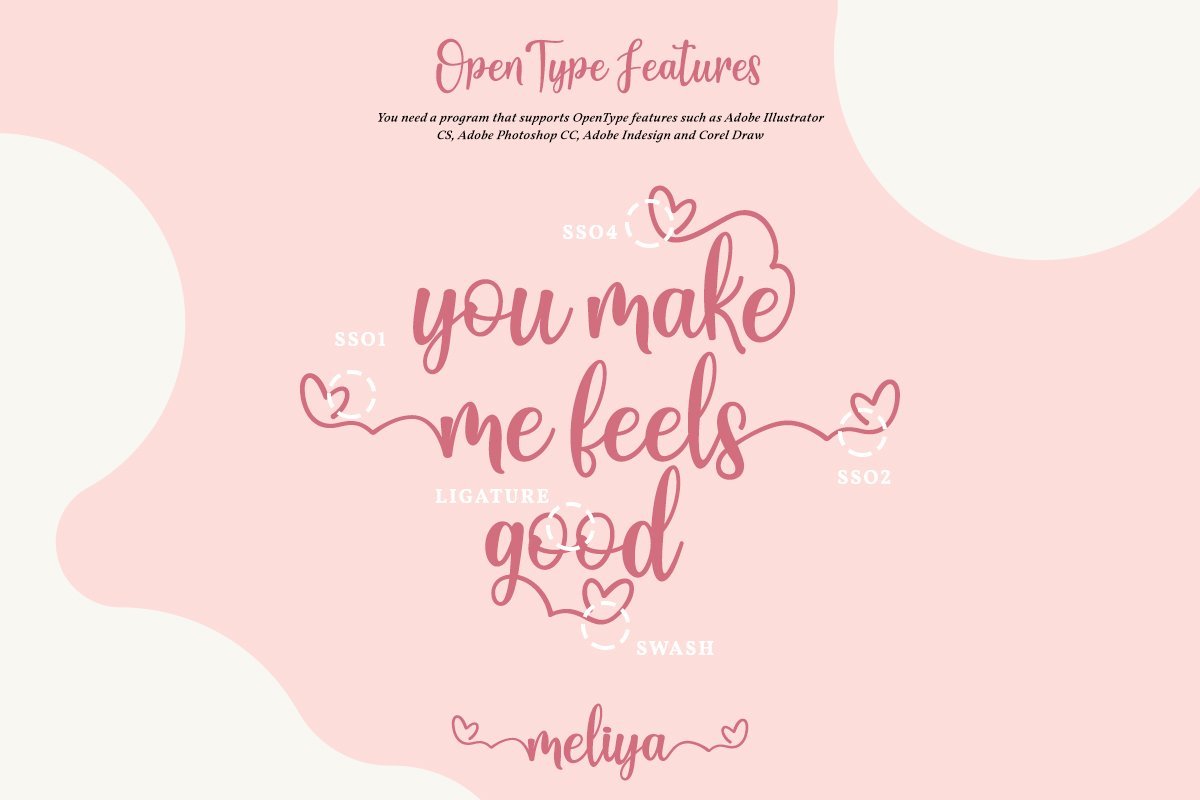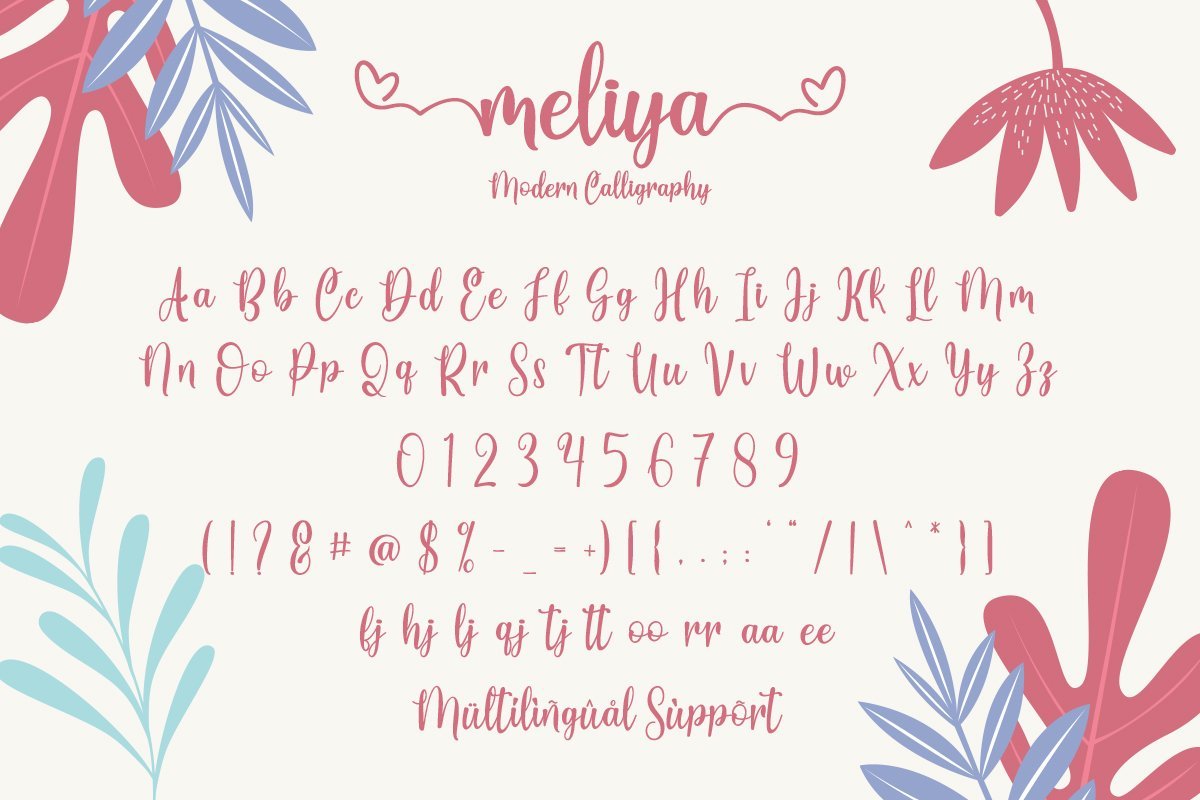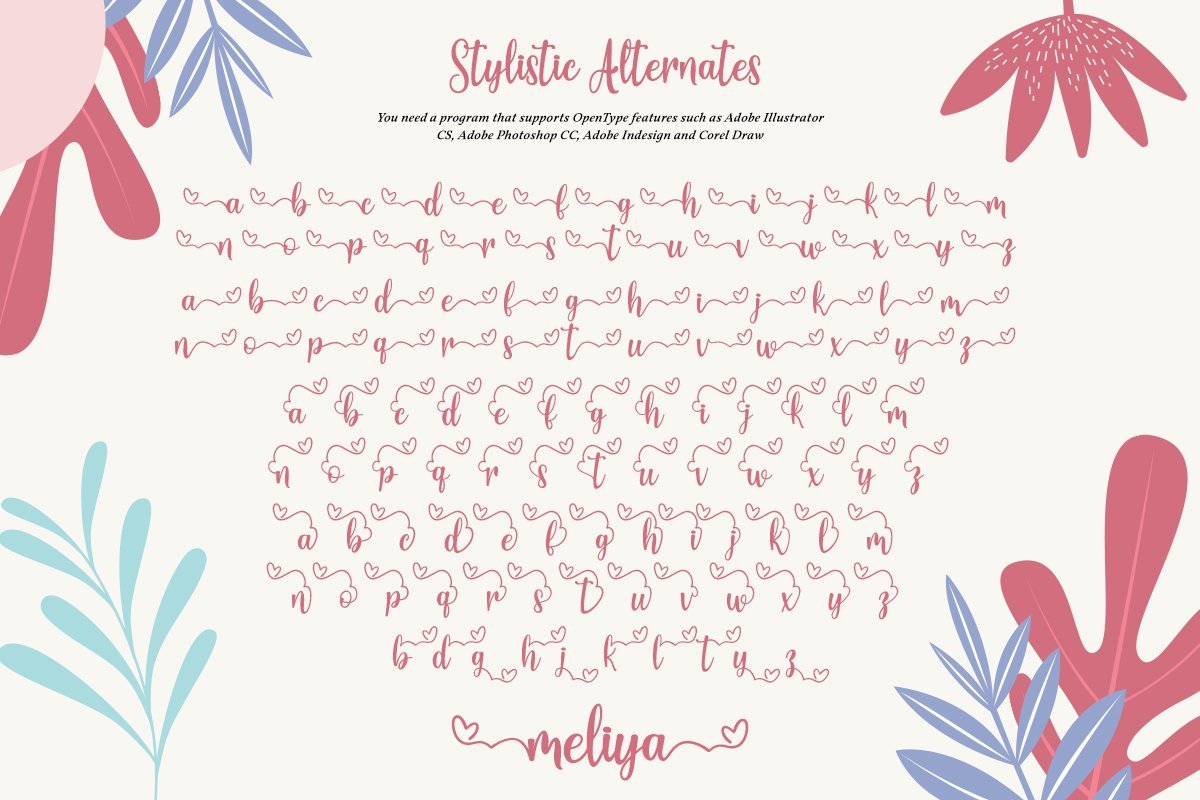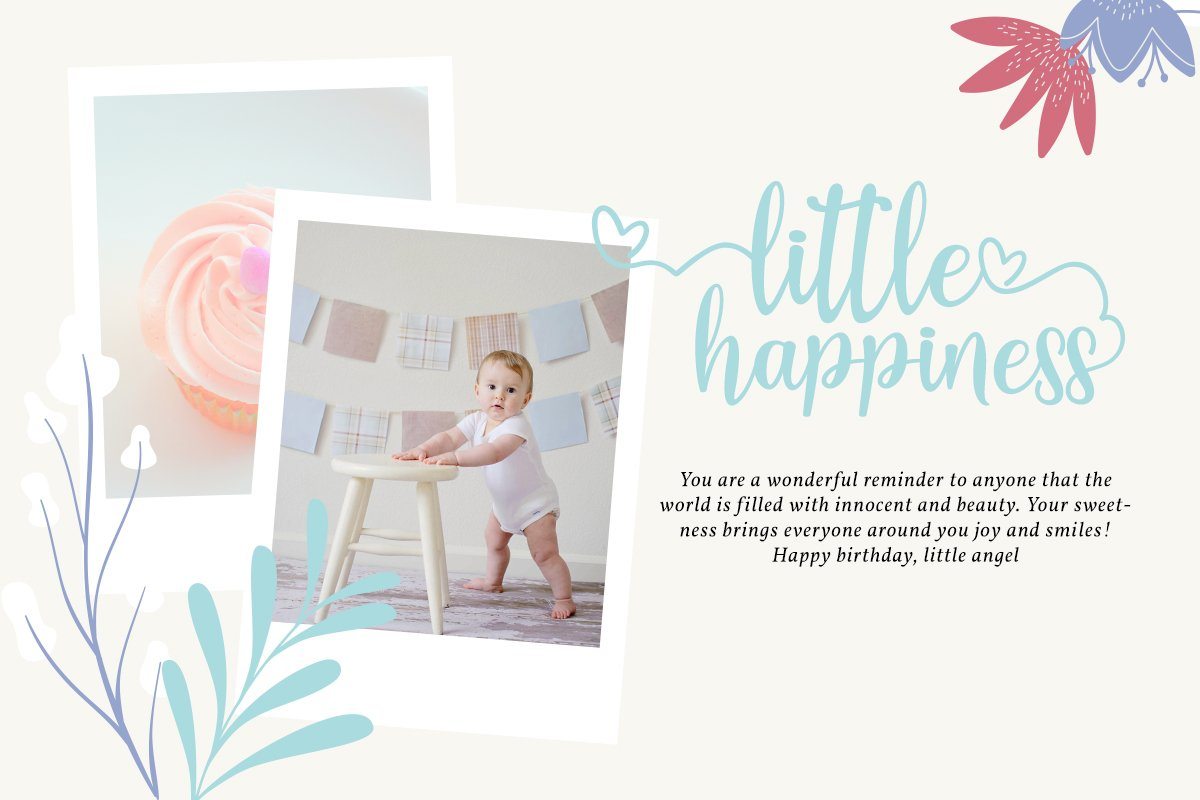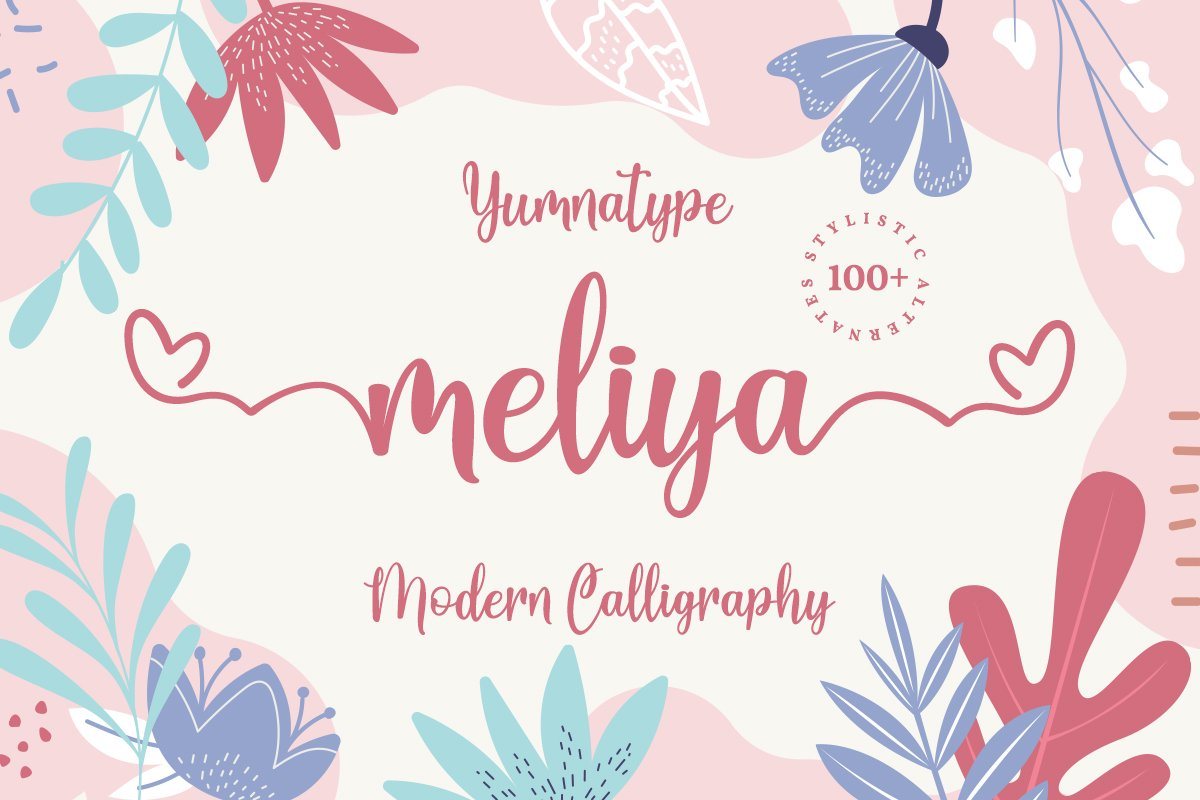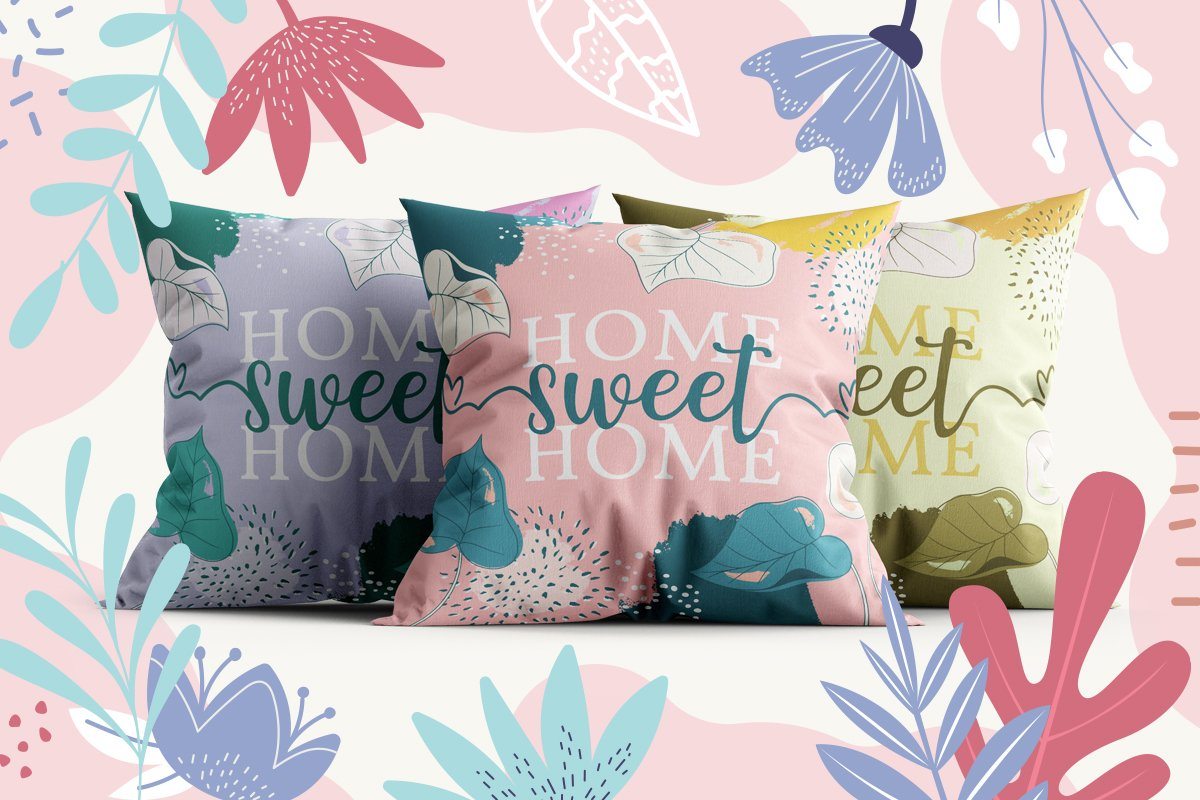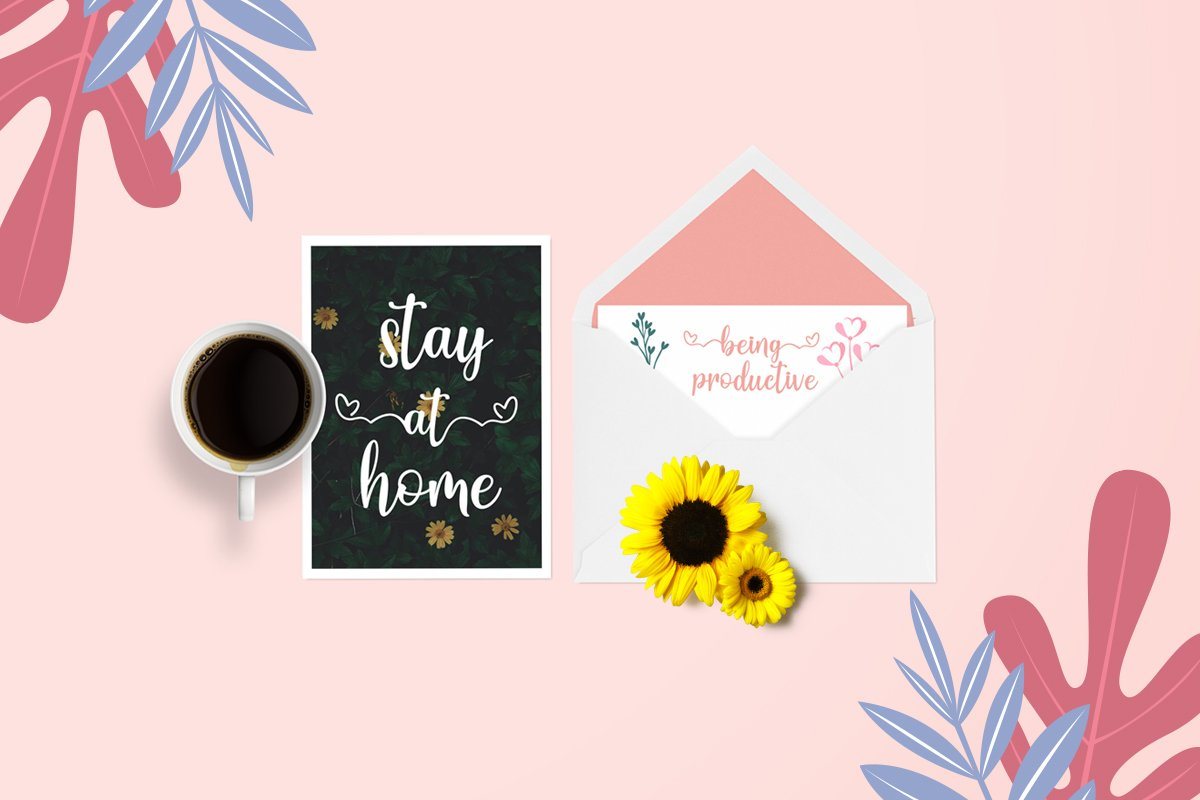
Meliya Script
About Meliya Script
Meliya is a beautiful script font with a natural and unique design will make your project more beautiful and powerful. The font is suitable for your branding project and any design. Features: Multilingual Support PUA encoded 11 Alternates 6 Ligatures 52 Swashes by Yumnatype